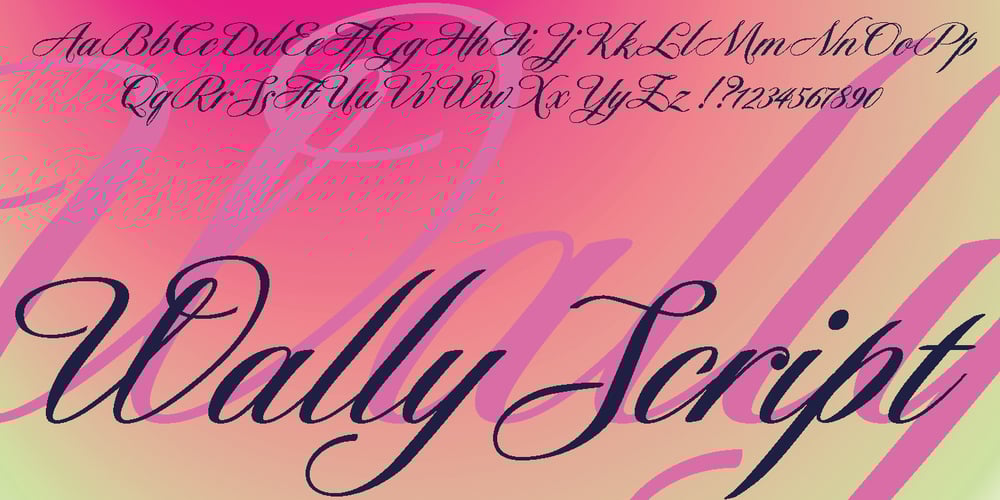
Wally
Wally font
Wally Font Family was designed by Gert Wiescher and published by Autographis. Wally contains 1 styles and family package options. Wally is an elegant hand-drawn script that has a very even flow and is readable down to very small sizes. Since it has a similar design it can be mixed with Novita and Novido.